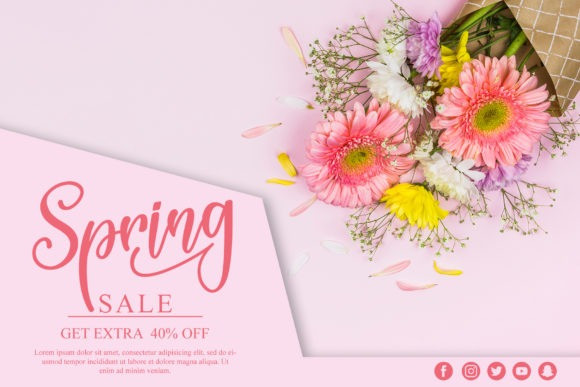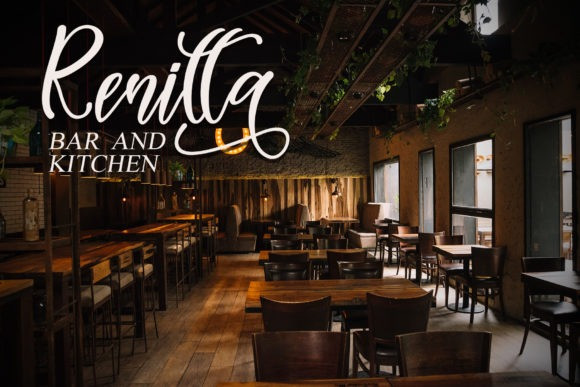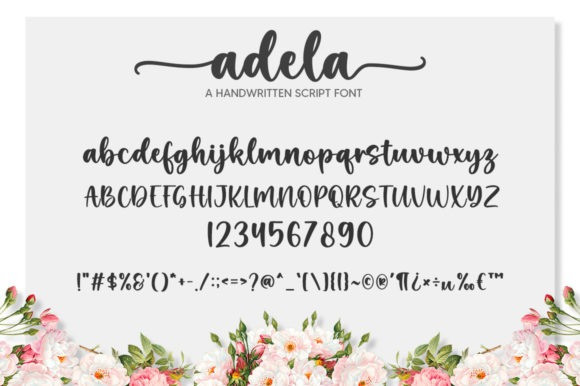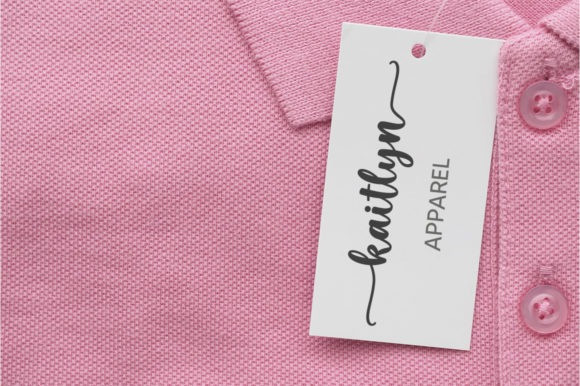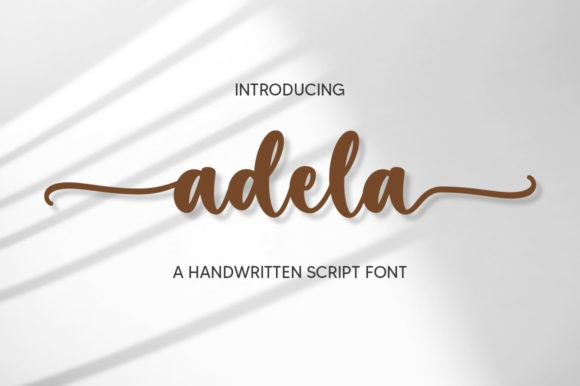
Adela Script Font
Adela Script Font is a lovely and timeless handwritten font. It is the best choice for creating eye catching logos, branding and quotes. Adela is PUA encoded which means you can access all of the glyphs and swashes with ease!